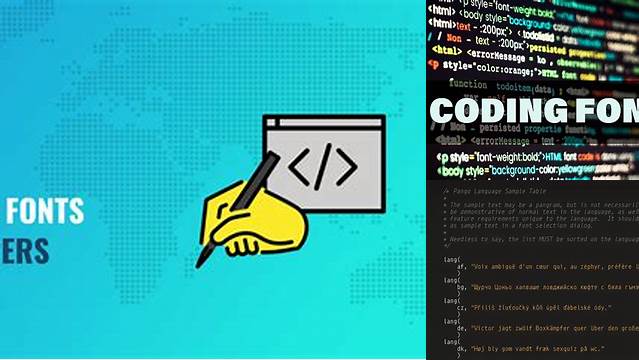
Title : Best Free Fonts for Programming
Welcome, fellow coders! In the world of programming, the right tools can make all the difference. But it's not just about the software you use; even something as seemingly simple as your font can profoundly impact your productivity and comfort. Let's face it, staring at code for hours on end can strain your eyes. That's why choosing the best free fonts for programming is crucial. This guide dives deep into the realm of code-friendly typefaces, helping you find the perfect match for your coding style and preferences. We'll explore various fonts, discuss their strengths and weaknesses, and provide recommendations to help you elevate your coding experience. Choosing the right font for programming is similar to selecting the right tool. It's about finding something that not only looks good but also enhances your ability to read, write, and understand code. From the crisp clarity of monospaced fonts to the subtle elegance of more refined typefaces, the options are diverse. Our goal is to provide you with the knowledge and resources to make informed decisions and choose the best free fonts for your needs.
Top Monospaced Free Fonts for Coding
When it comes to programming, monospaced fonts reign supreme. Every character in a monospaced font occupies the same horizontal space. This uniformity is incredibly beneficial for code readability, as it ensures consistent alignment of characters, symbols, and code elements. Monospaced fonts are designed specifically for this purpose, ensuring that your code aligns properly, making it easier to read and understand. The consistent width of each character means that code blocks, comments, and other elements remain neatly organized, preventing any visual confusion. Selecting the perfect font can improve your coding performance. Let's discuss some of the top picks in the world of monospaced fonts. Consolas is a popular choice because it comes bundled with Microsoft products. Its clean, modern design and excellent readability make it a go-to for many developers, with a slightly wider character spacing which can make it easier to read at smaller sizes. Next up is Fira Code. Fira Code is a font that stands out for its ligatures. Ligatures combine certain character sequences (like !=
or ->
) into a single, more readable glyph. This subtle enhancement can make your code look smoother and more efficient. Then we have Inconsolata, which is famous for its excellent legibility, even at small sizes. This is a great option for those who often work on high-resolution displays or prefer to keep their code compact. Also, Source Code Pro is an open-source font from Adobe, designed specifically for coding. Its clear letterforms and excellent spacing make it a favorite for developers. Each of these fonts has its own unique charm and caters to different preferences. Experimenting with a few of them is always a good idea to see which one best suits your coding style.
Exploring Font Styles and Weights
When choosing a free font for programming, the style and weight of the font are also important aspects to consider. The style, referring to the font's design, affects readability and your personal preferences. Some fonts, like Consolas, have a straightforward, slightly wider design that emphasizes readability. Other fonts have a more stylish look that gives your coding environment a fresh feel. The weight of a font impacts how bold or light the characters appear. The weight of a font can change its appearance. It has a massive impact on how the code appears on the screen. You will find that a slightly bolder font is useful for those who work long hours, as it reduces eye strain, and the code is more visible. Experimenting with different weights and styles can help you find the right combination. The choice of style and weight can have a significant impact on your coding experience. Choose a font style that resonates with you and keeps your code clear and organized.
Font Rendering and Anti-aliasing
Font rendering is the process by which a computer translates the digital font data into the visual characters you see on your screen. The quality of this rendering process greatly affects the readability of the font. Anti-aliasing is a technique used to smooth out the jagged edges of fonts, especially at smaller sizes. Anti-aliasing is also a helpful method to improve readability and reduce eye strain. It works by blending the edges of the font with the background color, which reduces the harsh contrast. When selecting a free font for programming, it's essential to consider how it renders on your specific operating system and display settings. Not all fonts render the same way on different systems. On a high-resolution display, anti-aliasing might be less critical, but on a lower-resolution screen, it can make a huge difference. Understanding and adjusting your system's font rendering settings can significantly improve your coding experience. You will also find that anti-aliasing options vary between operating systems. Exploring those options can let you find what works best for your eyes. Pay attention to how your chosen font looks in various IDEs and text editors, since some environments offer better font rendering capabilities than others. Make sure to find the settings that improve clarity.
Best Free Fonts for Code Editors and IDEs
Choosing the right font for your code editor or IDE is crucial because these are the environments where you'll spend most of your time coding. Your IDE of choice is the place where you will write your code, so you must pick a font that works for you. The best fonts for code editors are those that prioritize readability, clarity, and a consistent visual structure. Many editors and IDEs allow you to customize font settings. This makes it easier to personalize your environment. Monospaced fonts are generally preferred for code editors and IDEs. This is because the fixed-width nature of these fonts makes it easy to align code, which is essential for readability. However, some developers prefer a proportional font. Proportional fonts are not monospaced, and different characters have different widths. While some people like them, proportional fonts are less common in code editors. Popular IDEs like Visual Studio Code, Sublime Text, and IntelliJ IDEA have the option to change the font. IDEs also come with features like syntax highlighting and auto-completion, which can enhance the coding experience. Many popular free fonts are available for download and installation. Once installed, they can be set as the default font within your code editor or IDE. Experimenting with different fonts is always recommended to find one that suits your preferences and improves your productivity. The ideal font is one that reduces eye strain, is easy to read, and helps you see your code quickly.
Font Size and Spacing Considerations
Besides choosing the right font, font size and spacing are also critical elements for an optimal coding experience. Choosing the right font size depends on your personal preference, display resolution, and viewing distance. Too small a font can strain your eyes, while too large a font can clutter the screen. Typically, a font size between 10 and 14 points is considered ideal for coding, but the exact size may vary depending on the font. Font spacing, including line height and character spacing, is another important factor. Adequate line height (the vertical space between lines of text) improves readability. Character spacing (the horizontal space between characters) affects how easily you can distinguish individual characters and words. Many code editors allow you to adjust both line height and character spacing. You can customize it until you achieve a comfortable and readable layout. Experiment with different font sizes and spacing settings until you find the perfect balance for your coding environment. Make sure to keep the code clean and organized for the best results.
Customization Options in Code Editors
Most modern code editors and IDEs offer extensive customization options. You can personalize them to match your preferred style and create an ideal coding environment. These options include font selection, font size adjustment, and font style customization. Most code editors allow you to choose any installed font. You can change the font size. Adjusting the size can improve readability and reduce eye strain. Bold and italic styles can also be applied, allowing you to highlight important code elements. Another option is syntax highlighting, which uses colors to differentiate different elements. You can configure syntax highlighting schemes to fit your needs and preferences. Many editors also support themes, which combine font choices, colors, and other settings to create visually appealing and functional environments. You can also create your own themes. The ability to customize your code editor empowers you to create a personalized coding environment. This customization can enhance your workflow and improve your coding experience. Make sure you find the settings and features that best match your preferences.
Variable Width vs. Monospaced Fonts in Code
When choosing a font for programming, you'll encounter two main types: variable-width and monospaced. Understanding the differences between these types is important. Monospaced fonts are the standard for coding. In a monospaced font, every character takes up the same horizontal space. This fixed-width design allows for perfect character alignment. This makes it much easier to read code, especially when it comes to aligning code blocks, tables, and other structured elements. Variable-width fonts are different because each character has a different width. This is the type of font used in this document. These fonts can give your code a more casual and relaxed appearance. However, because the widths vary, code can be harder to align. This may reduce readability for some coders. Although variable-width fonts are not very common for coding, some developers like the look and feel. The choice between monospaced and variable-width fonts depends on your personal preferences and coding style. Monospaced fonts are generally recommended for their superior readability and alignment. The goal is to find a font that makes your code readable and helps you efficiently identify errors.
The Role of Ligatures in Font Choice
Unicode and Character Set Support
Unicode is the global standard for encoding characters. Unicode covers nearly all characters from all writing systems, making it an essential consideration when choosing a font for programming. A font with good Unicode support ensures all the symbols you use can be displayed properly. This includes not only standard ASCII characters but also special symbols, mathematical operators, and characters from various programming languages. Select fonts that have full Unicode support. If you are working with languages with non-English characters, make sure your chosen font supports them. This prevents the